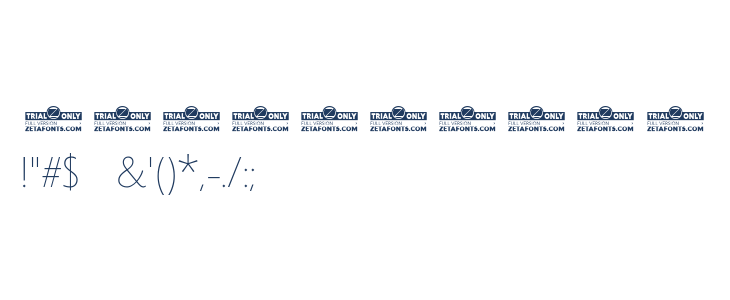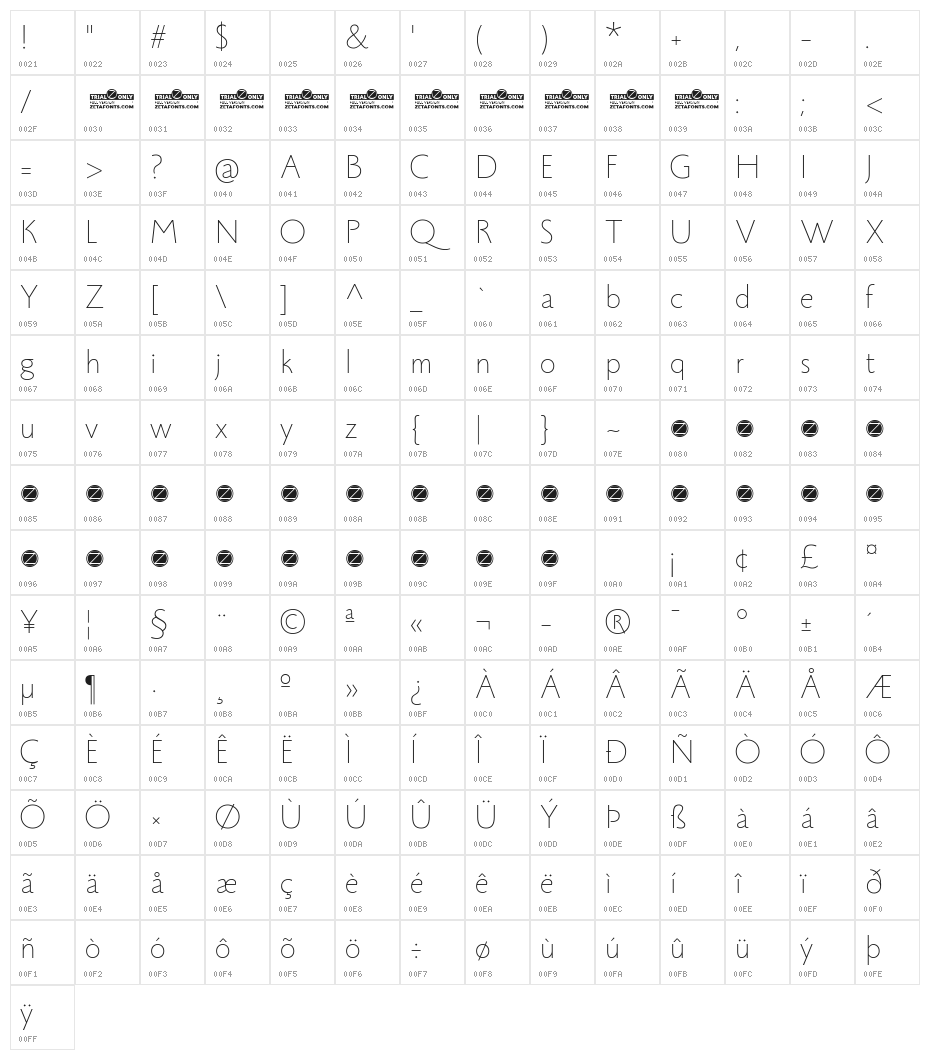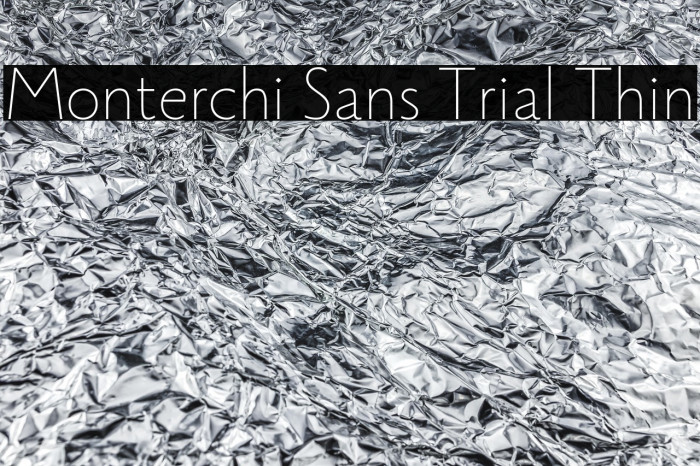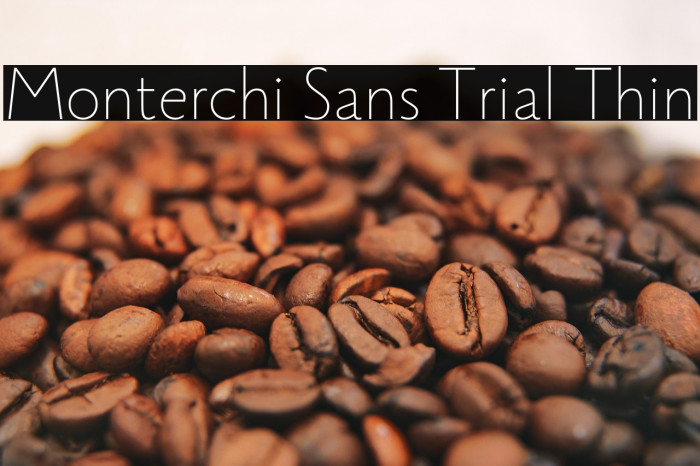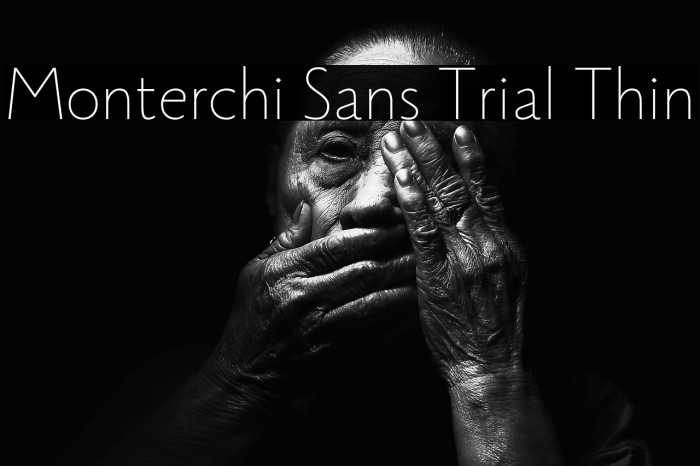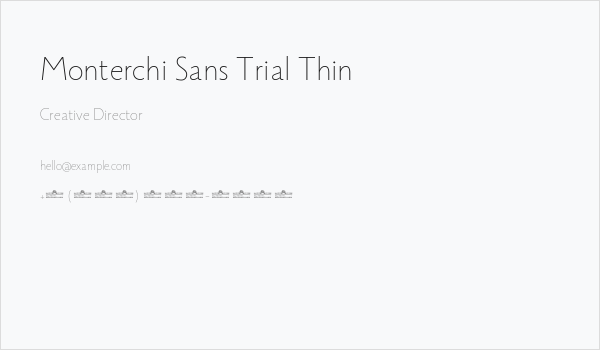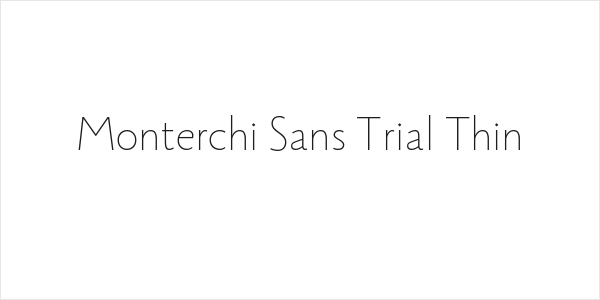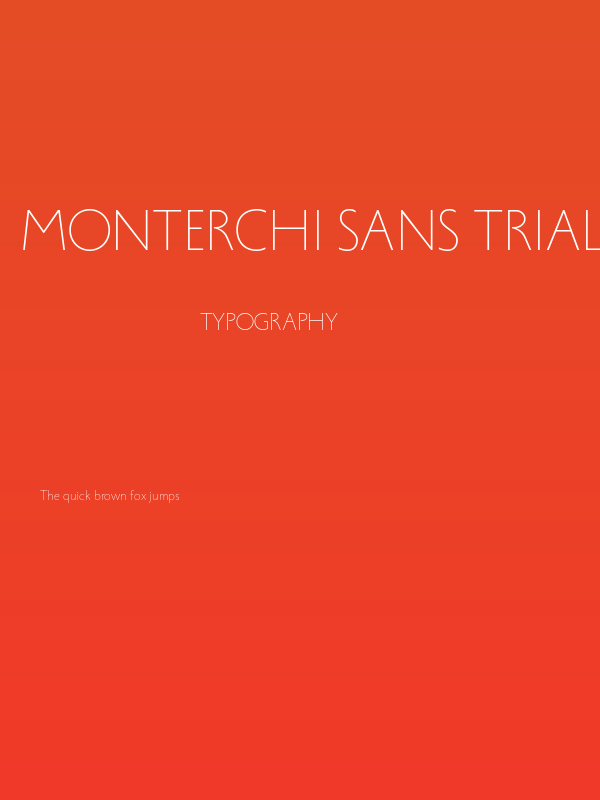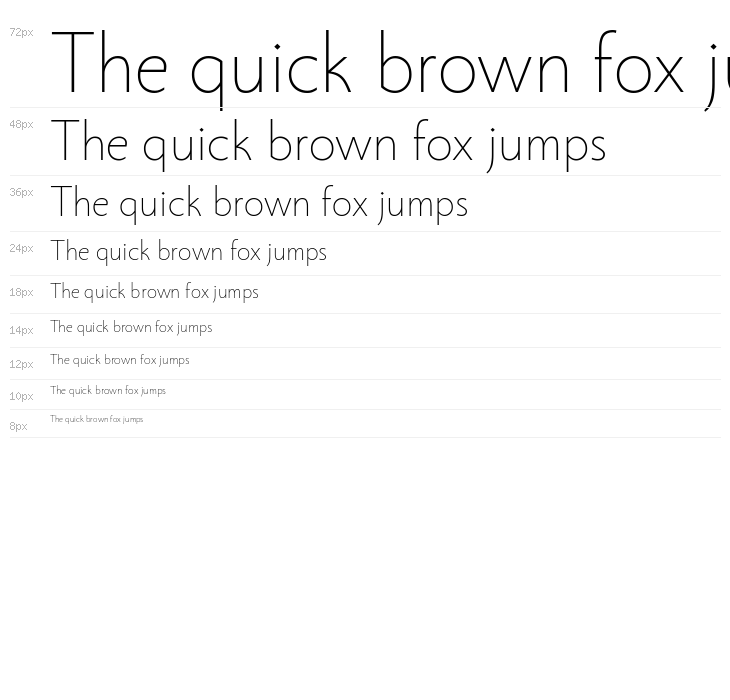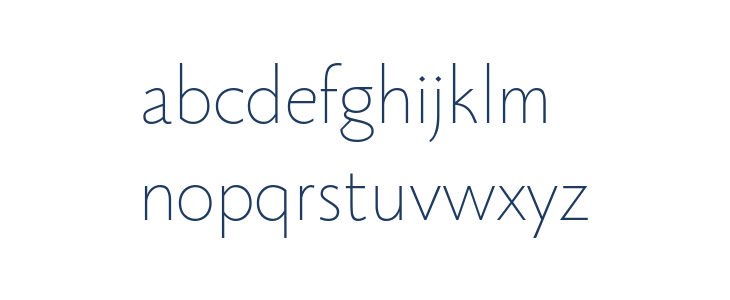
Monterchi Sans Trial Thin Font
Monterchi Sans Trial Thin Description
This font features a clean and elegant sans-serif design with thin, uniform strokes that convey a sense of modernity and simplicity. The uppercase letters are tall and slightly narrow, giving a sophisticated appearance, while the lowercase letters maintain a consistent height and width, ensuring readability. The numerals and special characters are designed with the same thin strokes, maintaining a cohesive look throughout. The overall style is minimalist, making it suitable for contemporary design projects.